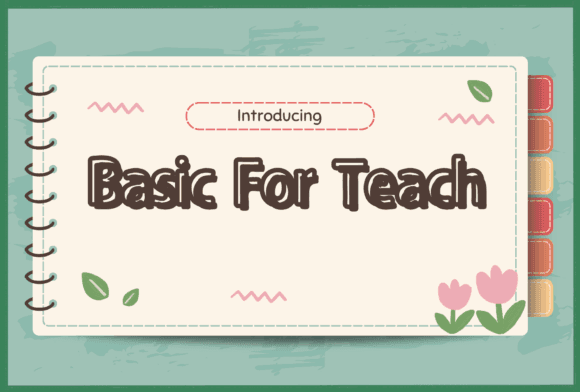
Basic for Teach Font for Cricut, Silhouette and Printable Designs
This is a high-quality font file designed for creative production across educational and craft-focused projects. With its simple structure and smooth readability, Basic for Teach is perfect for digital creators looking to enhance worksheets, classroom signage, and printable resources with a friendly, approachable look. In addition to its versatility, this font file stands out for its compatibility with various software, making it an ideal choice for both beginners and seasoned professionals. Whether you're developing educational materials or unique art projects, the Basic for Teach font blends seamlessly with other styles, including a batik classic font for design projects. This combination can elevate your work, adding depth and personality to any piece you create.
The font is optimized for both personal and professional use, including compatibility with cutting machines and design software. It reinforces the core entity of typography while supporting downstream output in print, vinyl, and digital design.
- Printable worksheets and flashcards
- Educational signage and labels
- Custom planner inserts and charts
- Home classroom décor items
- School-themed merchandise and gifts
- Clear, legible characters perfect for learning tools
- Flexible enough for both print and digital uses
- Scales smoothly across text sizes without distortion